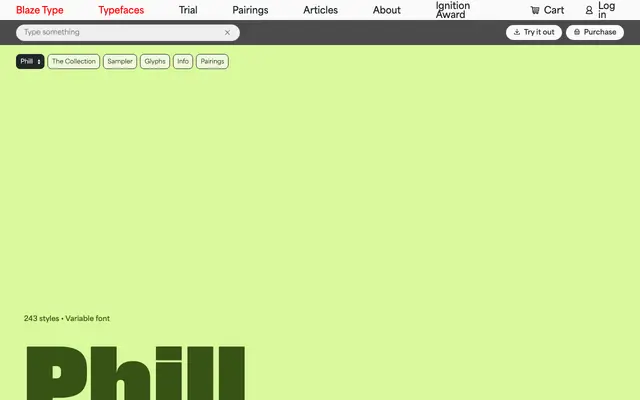
A 243-style sans-serif system spanning nine width grades from Compressed to Wide, each offered in nine weights with upright, slant and backslant variants.
Nine sub-families cover an unusually granular width spectrum, running from Compressed through SemiCondensed and Normal up to Wide, giving designers fine-grained control over measure and texture. Each sub-family carries nine weights from Thin to Black, and every weight is accompanied by both a forward slant and a backslant, yielding 243 styles in total. The variable font consolidates this range into a single file, making it well suited to editorial systems and display work that demands consistent DNA across varied contexts.
A broad sans-serif system with no serifs and a grotesque construction, spanning nine width grades from Compressed to Wide with upright, slant and backslant variants throughout.